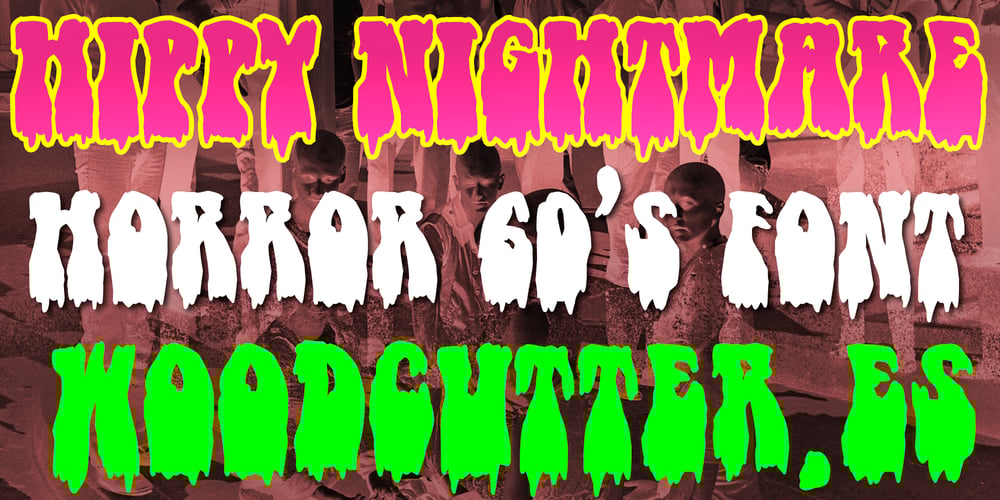
Hippy Nightmare Font Family was designed by Jordi Manero and published by Woodcutter. Hippy Nightmare contains 1 styles and family package options. “Hippy Nightmare” is a typeface with a 1960s aesthetic, paying homage to the most psychedelic hippie fonts while adding a dripping, blood-curdling horror twist. Its letters flow and warp, evoking the era of free love and music festivals, while macabre details add an unsettling vibe. Perfect for projects aiming to capture the essence of the hippie movement with a dark twist, “Hippy Nightmare” is ideal for posters, t-shirts, and designs seeking a unique and provocative style.